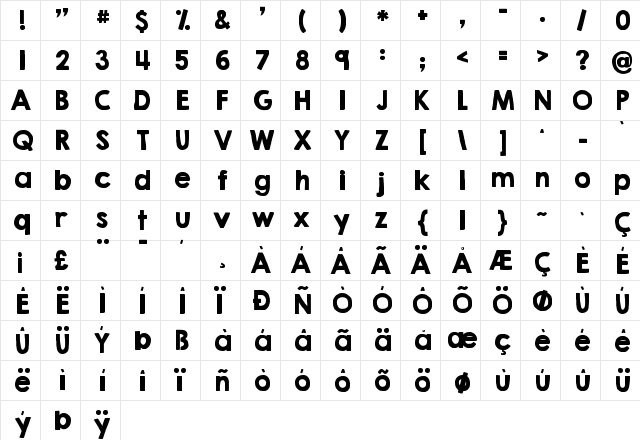
KG HAPPY Solid Regular
| Foundry | Kimberly Geswein |
| Designer | Kimberly Geswein |
Design Context for KG HAPPY Solid Typeface
KG HAPPY Solid takes a measured approach to typography — its balanced proportions and neutral character make it a reliable workhorse for both digital and print work.